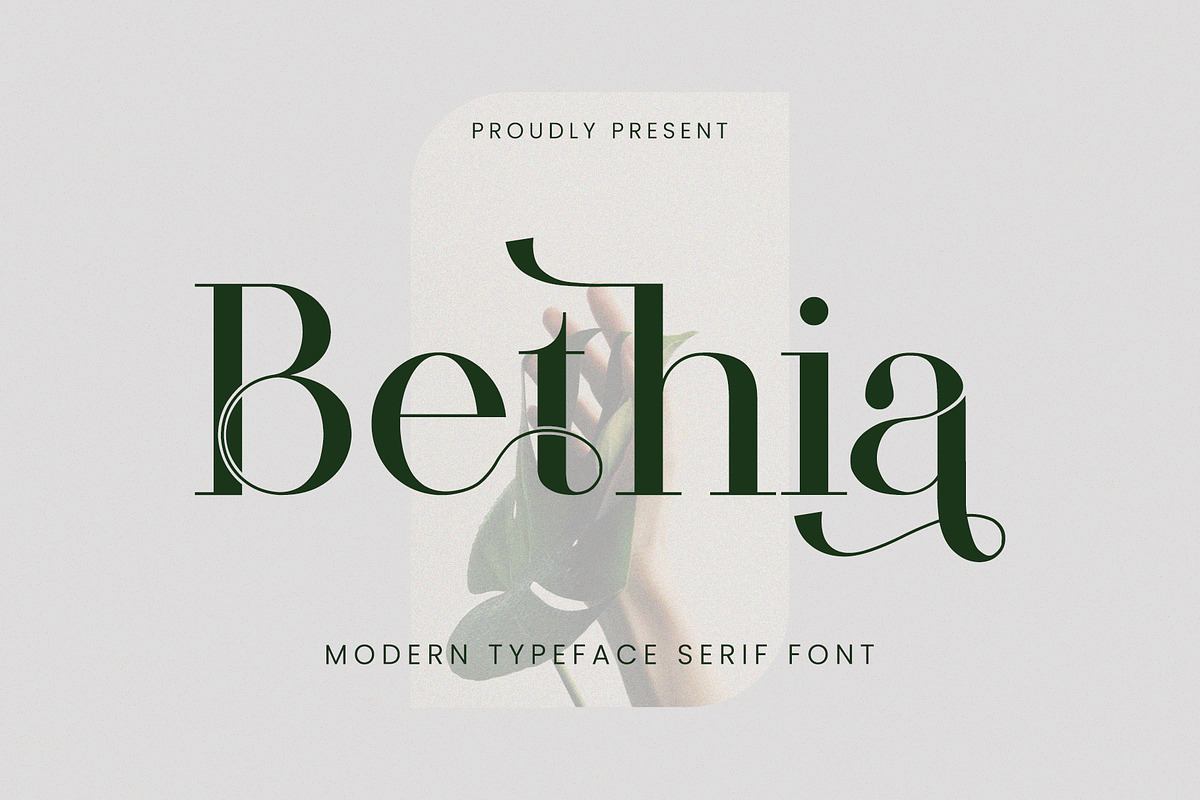
Bethia – Modern Serif Font Free Download is a stylish and elegant typeface designed to bring sophistication and contemporary flair to your design work. With high contrast strokes, sleek curves, and refined serifs, Bethia is perfect for luxury branding, editorial layouts, wedding invitations, packaging, and fashion-related projects.
This font combines timeless beauty with a clean, modern edge—making it ideal for both print and digital use. Whether you're crafting a boutique logo or designing a classy magazine spread, Bethia delivers a polished and upscale look that stands out.